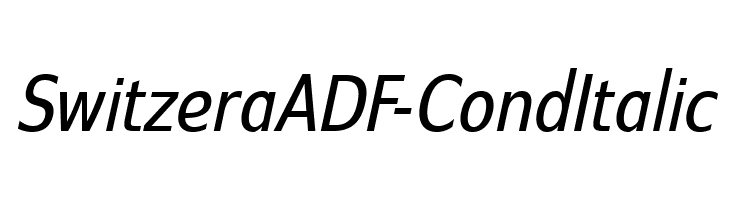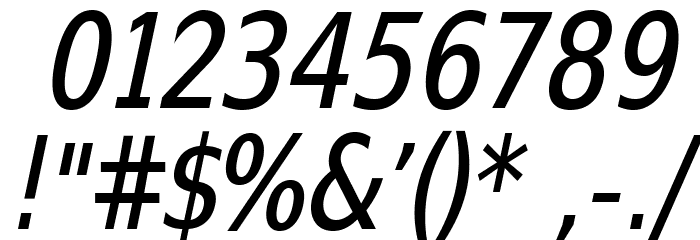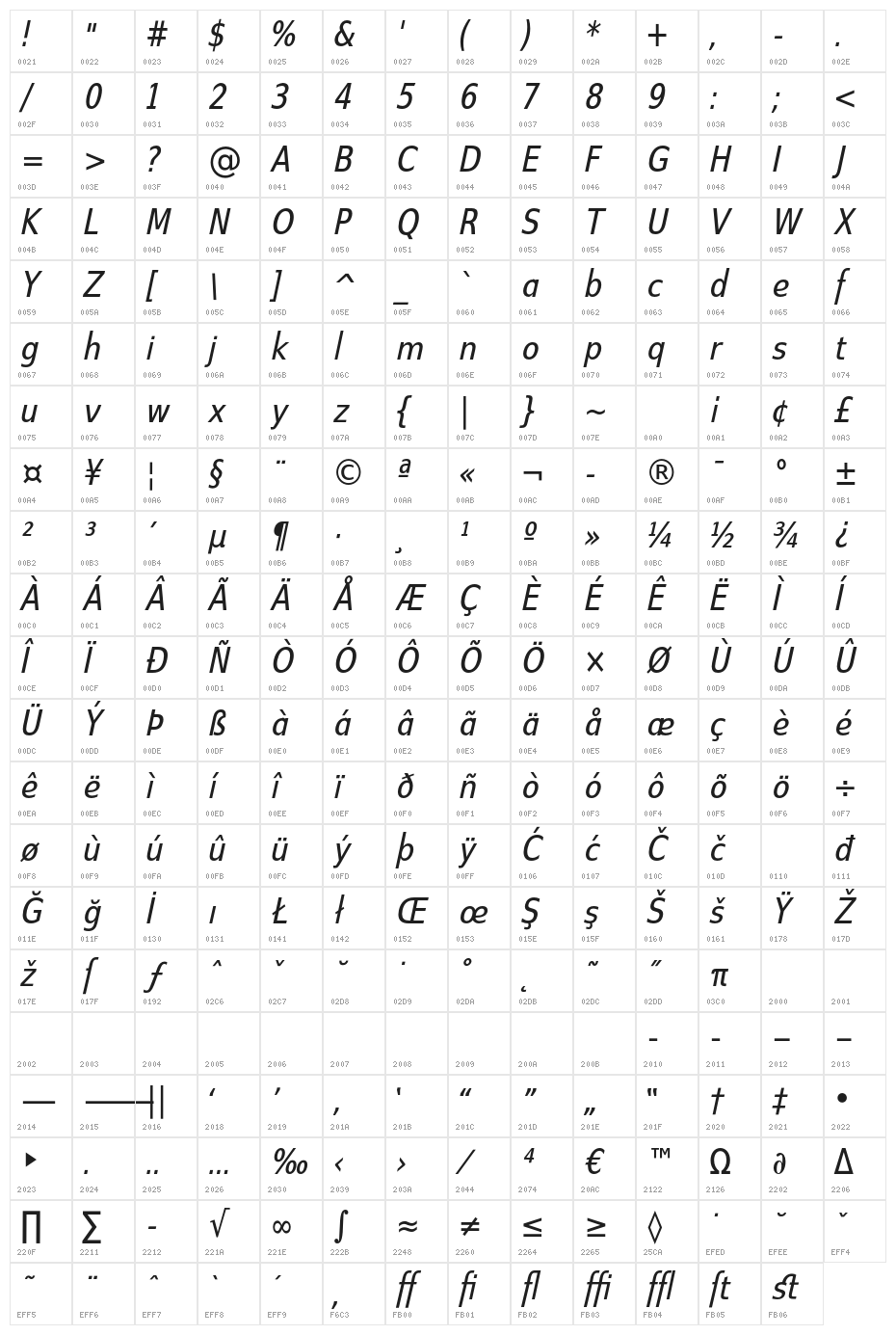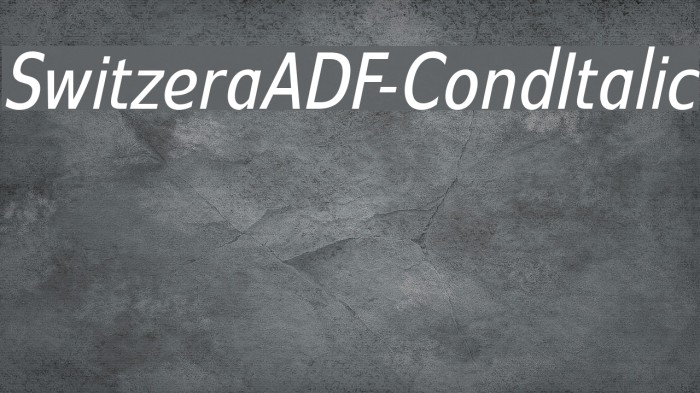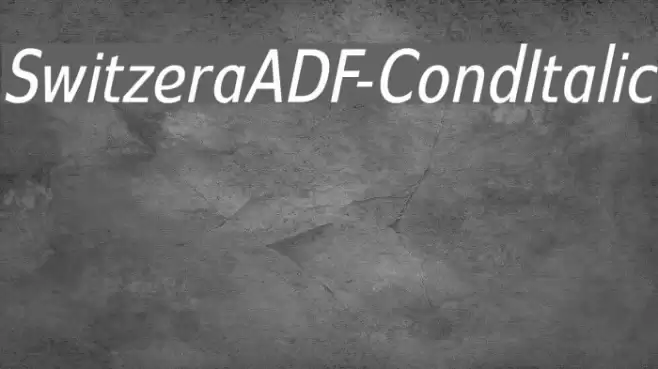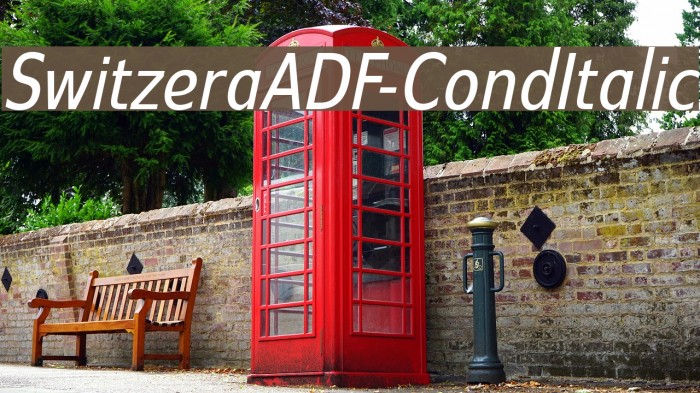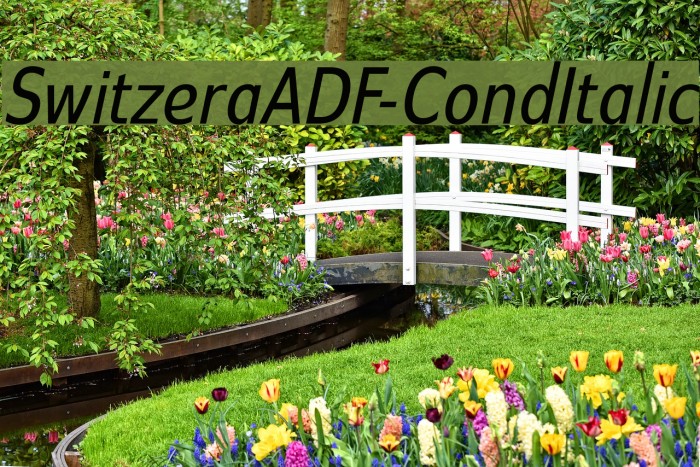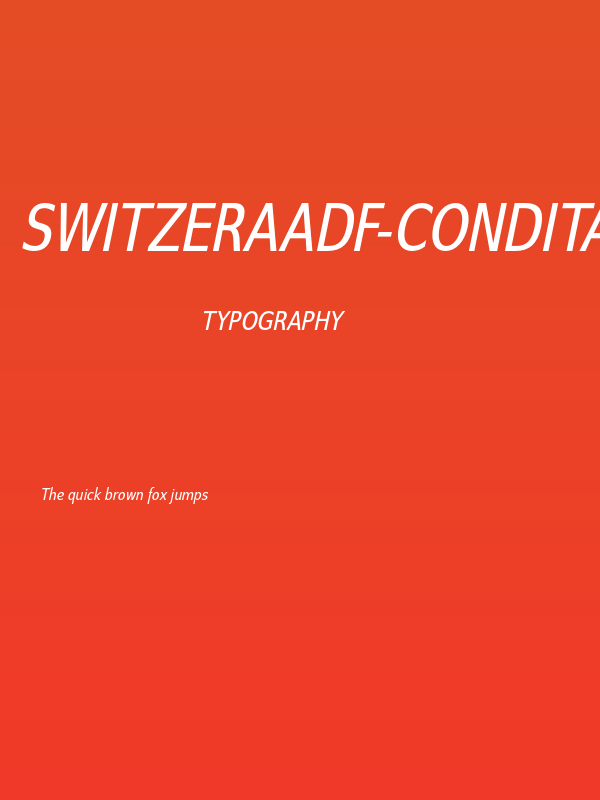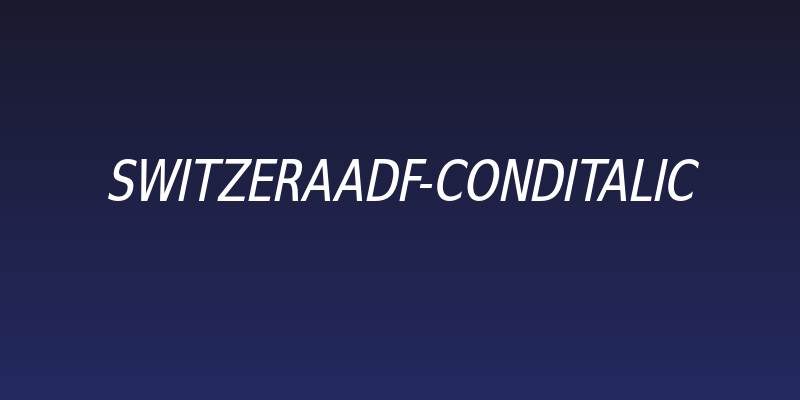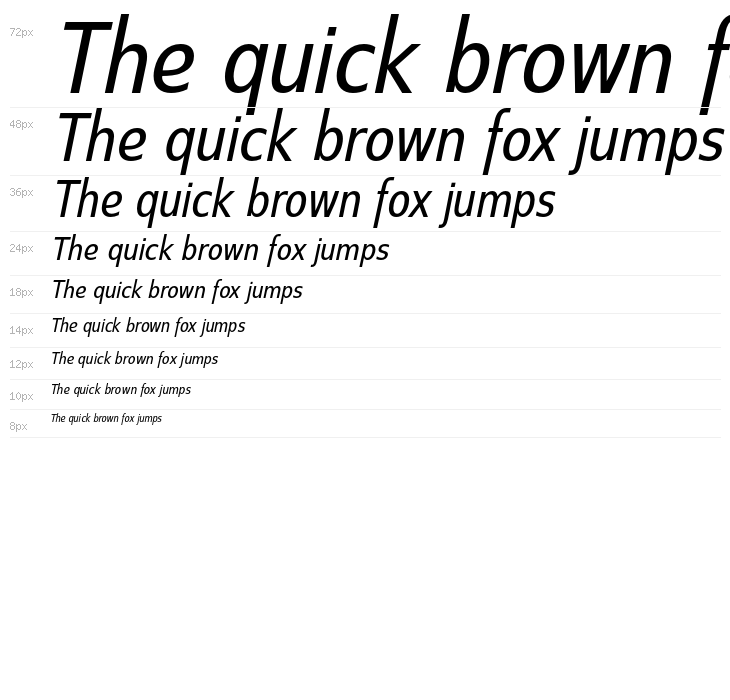
SwitzeraADF-CondItalic Font
SwitzeraADF-CondItalic Description
This font exhibits a sleek and modern design with a condensed and italicized style. The characters are slightly slanted, giving a dynamic and forward-moving appearance. The strokes are clean and consistent, with a medium contrast between thick and thin lines. The overall look is professional and contemporary, making it suitable for a variety of design applications. The spacing between characters is tight, enhancing the compact and efficient use of space. This font is versatile, offering clarity and readability while maintaining a stylish edge.